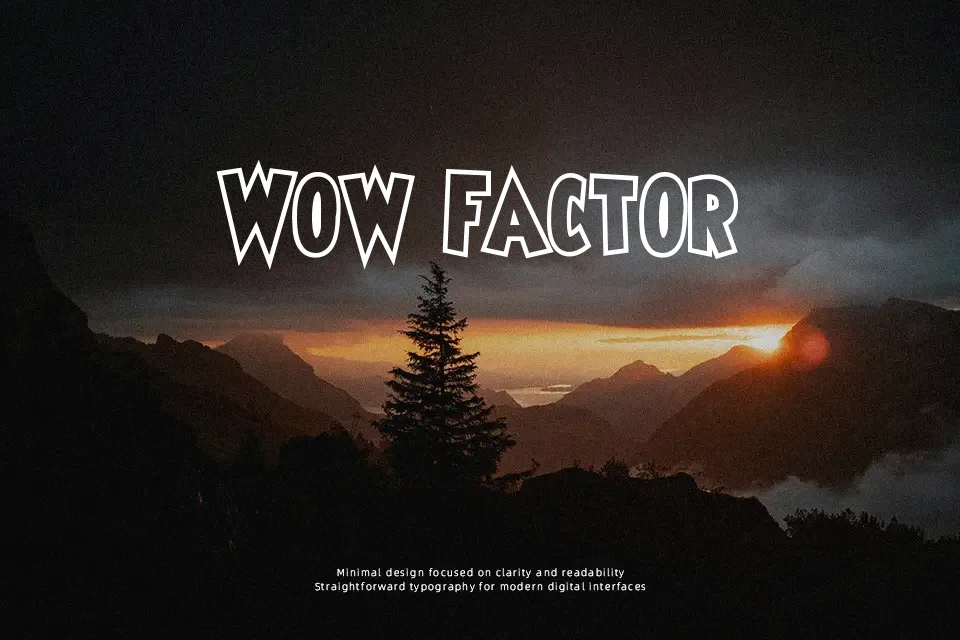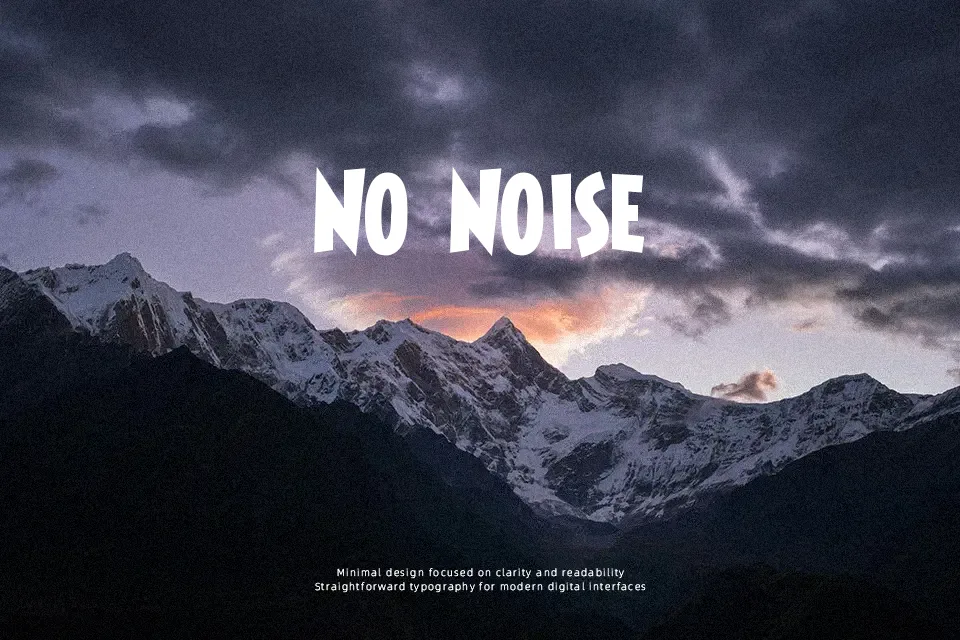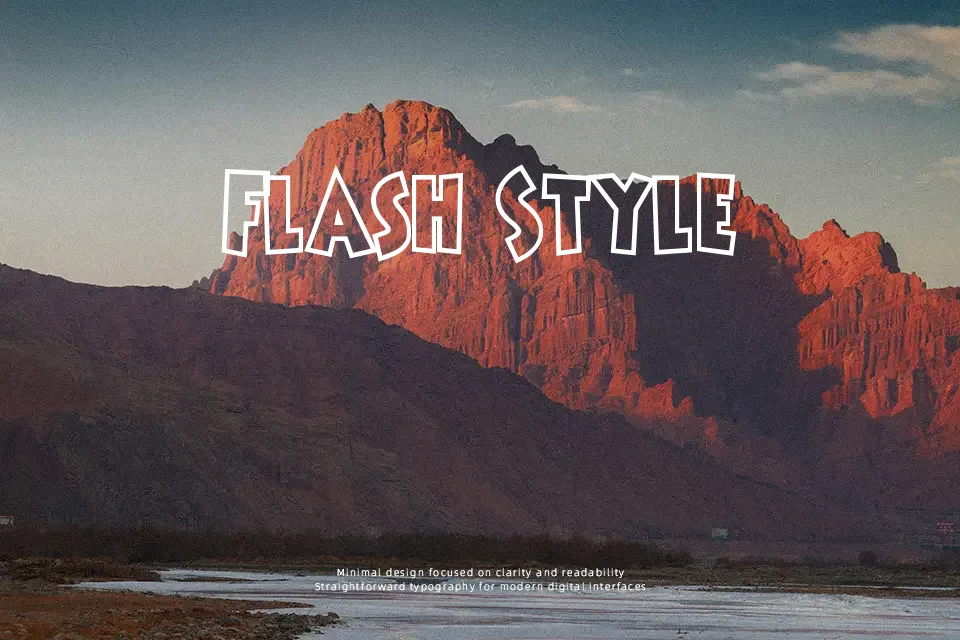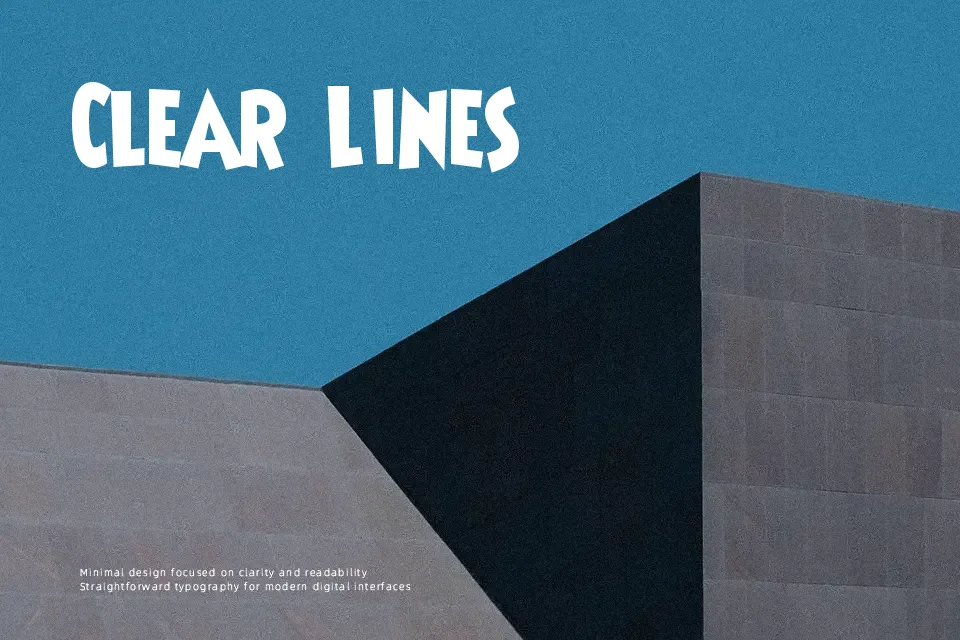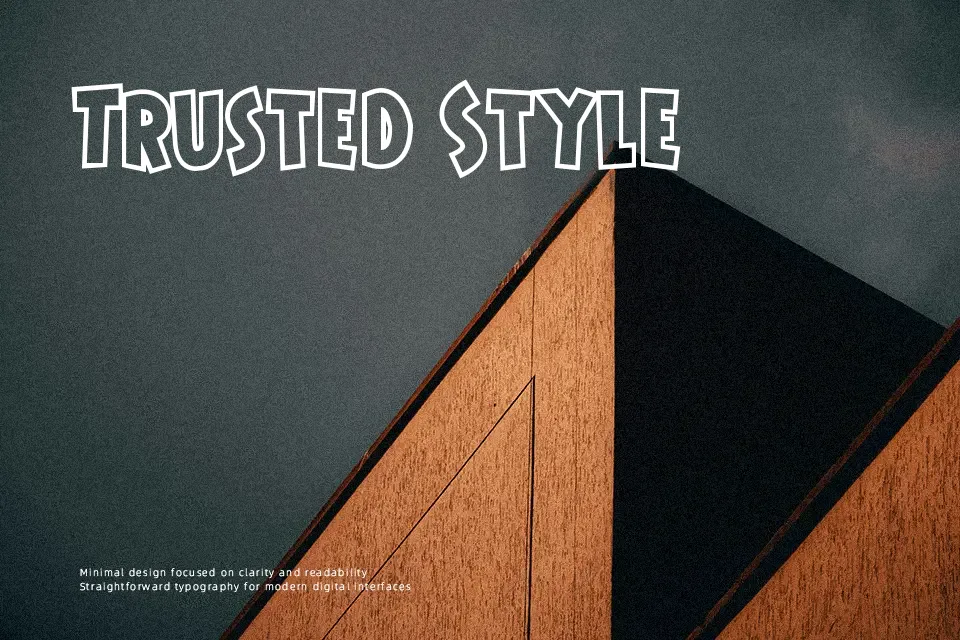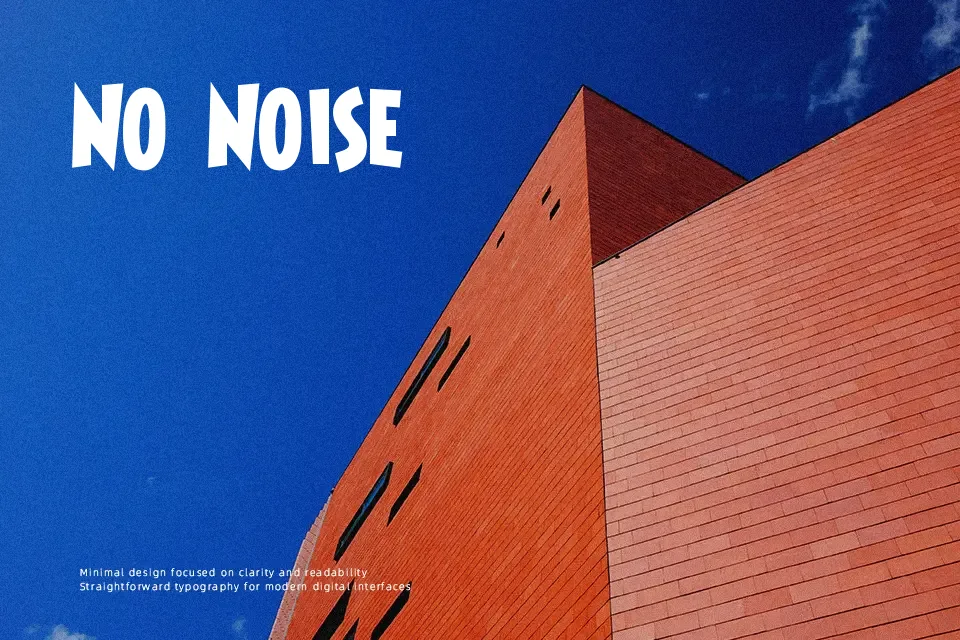
Shermlock Font
Shermlock Font features thick, animated letterforms defined by sharp angles, irregular stroke weights, and dynamic diagonal cuts. The typeface combines exaggerated character widths with tight glyph spacing, producing an energetic visual rhythm across display settings. Substantial stroke thickness ensures immediate visual prominence in large-scale applications such as cartoon titles, video game assets, and children’s event banners. However, the heavy density and stylized baseline shifts reduce legibility when scaled down to smaller sizes. The design remains balanced across uppercase and lowercase sets, but dense letter shapes become difficult to decipher in continuous body text. For maximum visual impact, large headline layouts provide the ideal environment.
animated film titles, comic book headers, themed party invitations, kids merchandise packaging
continuous body paragraphs, formal business documents, small mobile UI labels, dense data tables
Perfect for film, headline, and kids, with a bold and cartoon style.